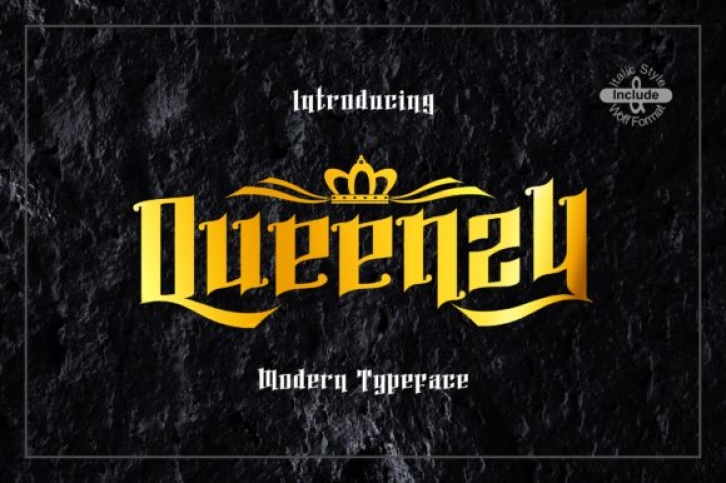
Queenzy is a unique display font. It features a vintage style that makes it perfect for any project that requires a nostalgic feel. This font is PUA encoded which means you can access all of the great glyphs and swashes with ease!